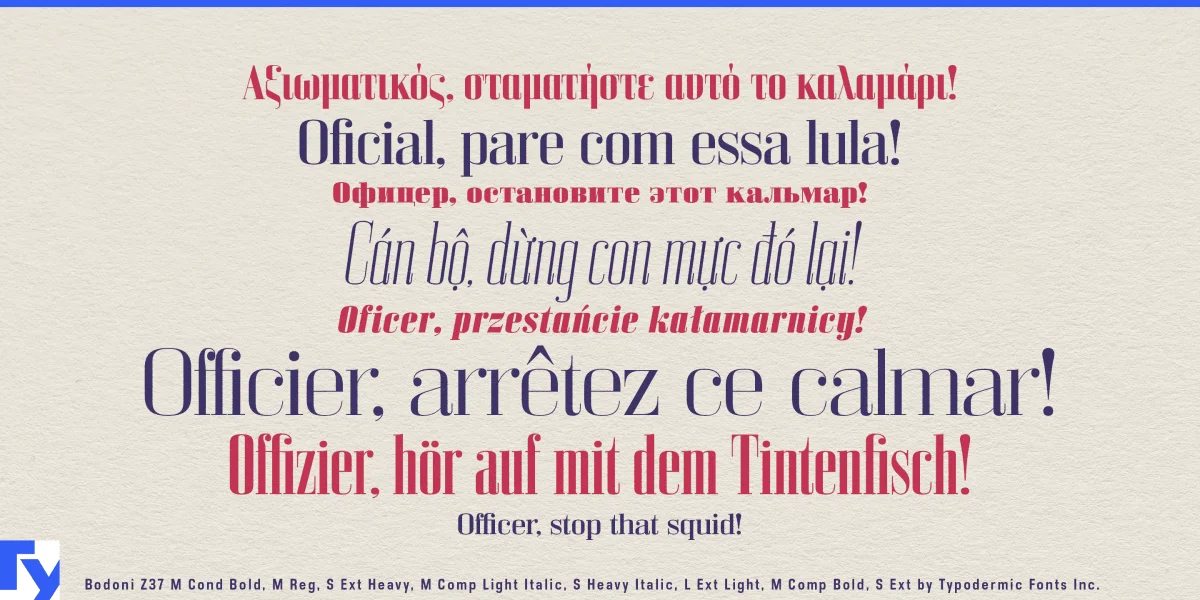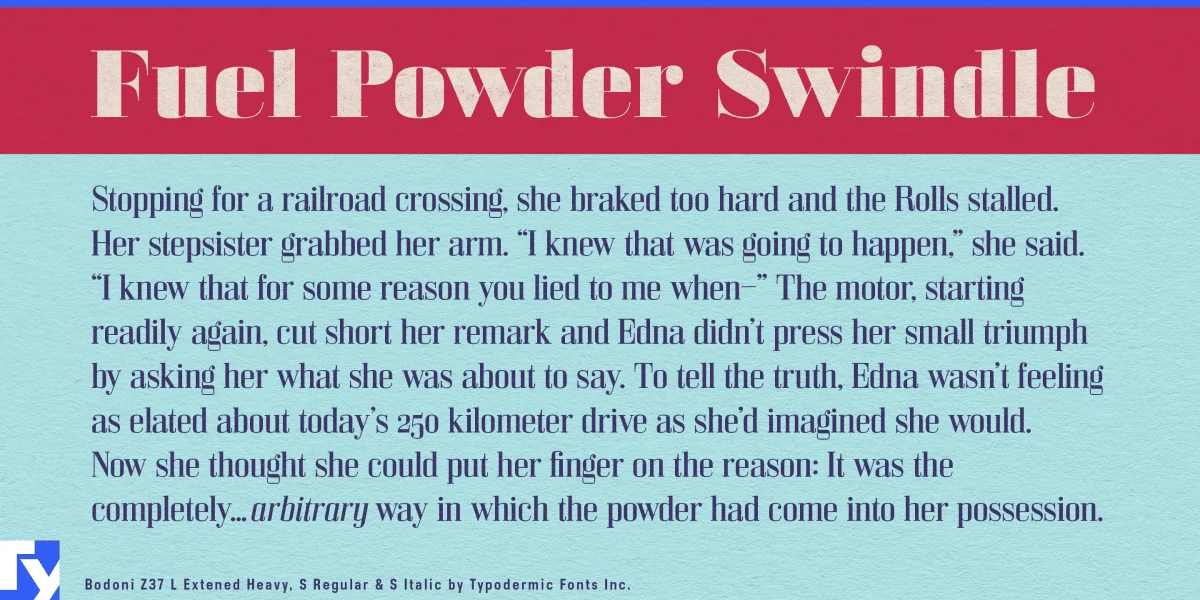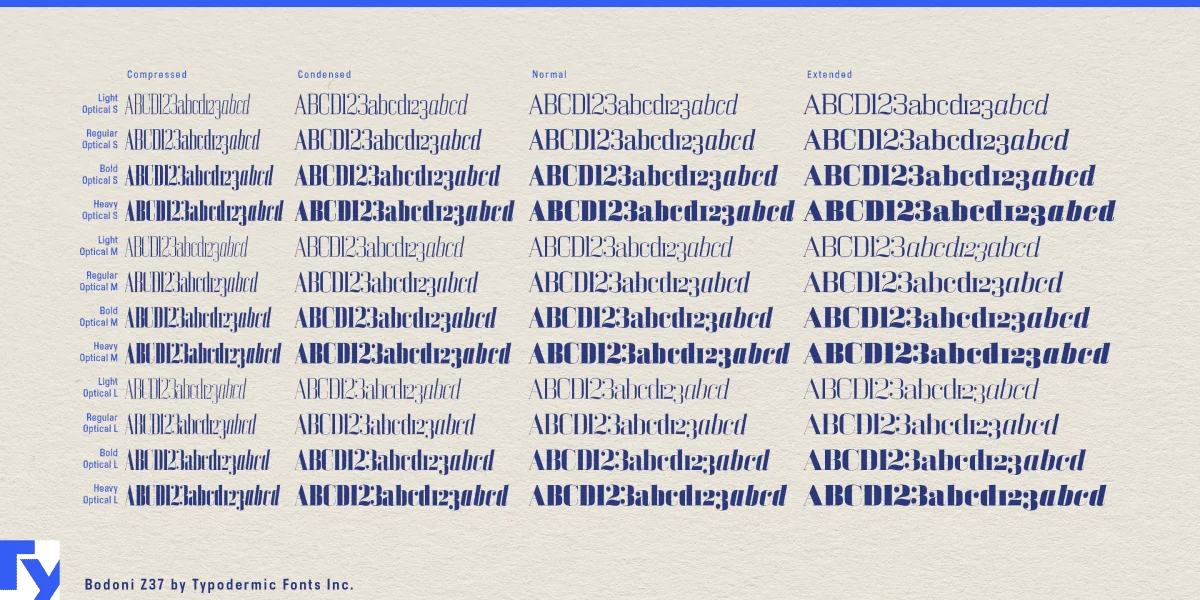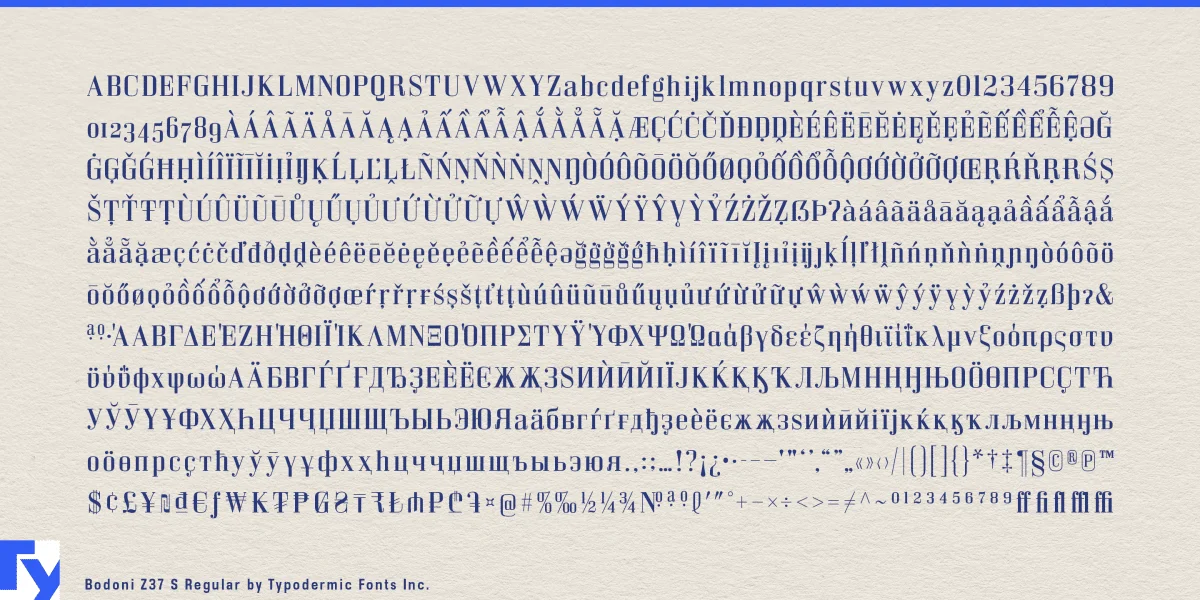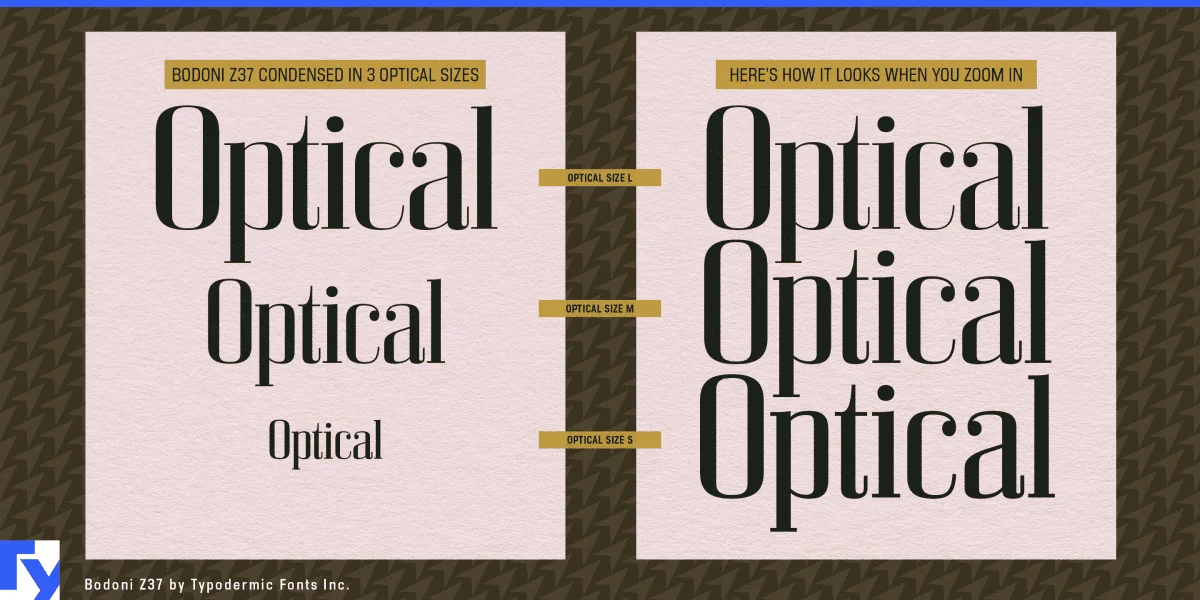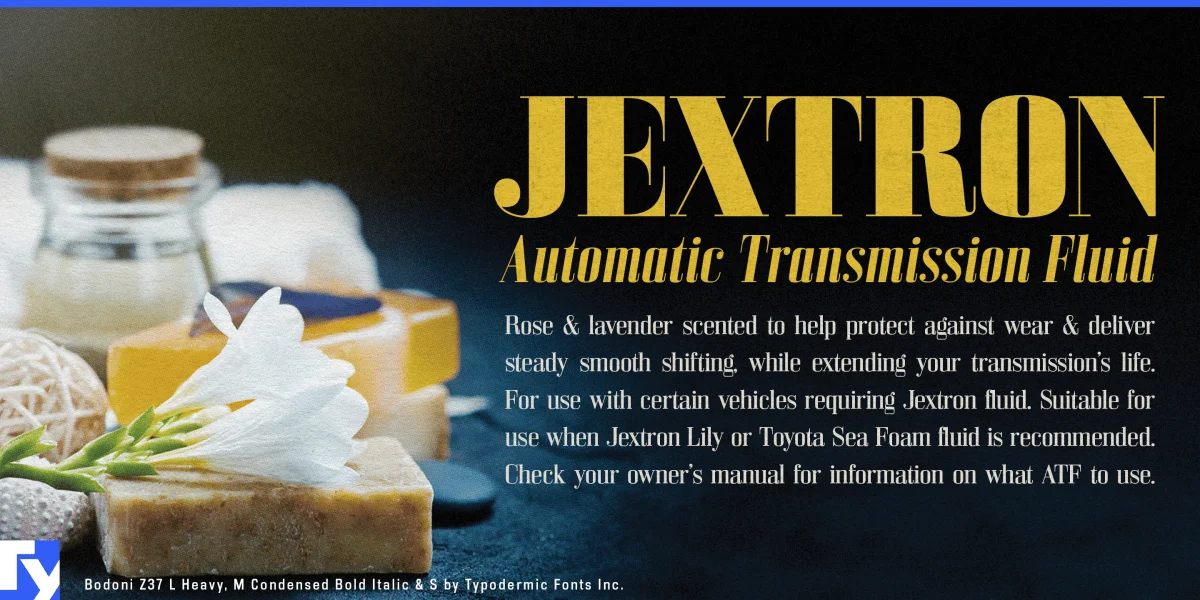
Bodoni Z37 is a contemporary interpretation of Giambattista Bodoni’s geometric elegance. Drawn with careful attention to proportion and rhythm, it preserves the dramatic contrast and refined structure that define the classic style while adapting it for modern typography.
Flat-sided curves subtly emphasize Bodoni’s geometric spirit, keeping the forms crisp on today’s high-resolution screens without losing their warmth. The result is a design that balances drama with discipline, equally at home in fashion editorials, art books, luxury packaging, and other projects where clarity and sophistication go hand in hand.